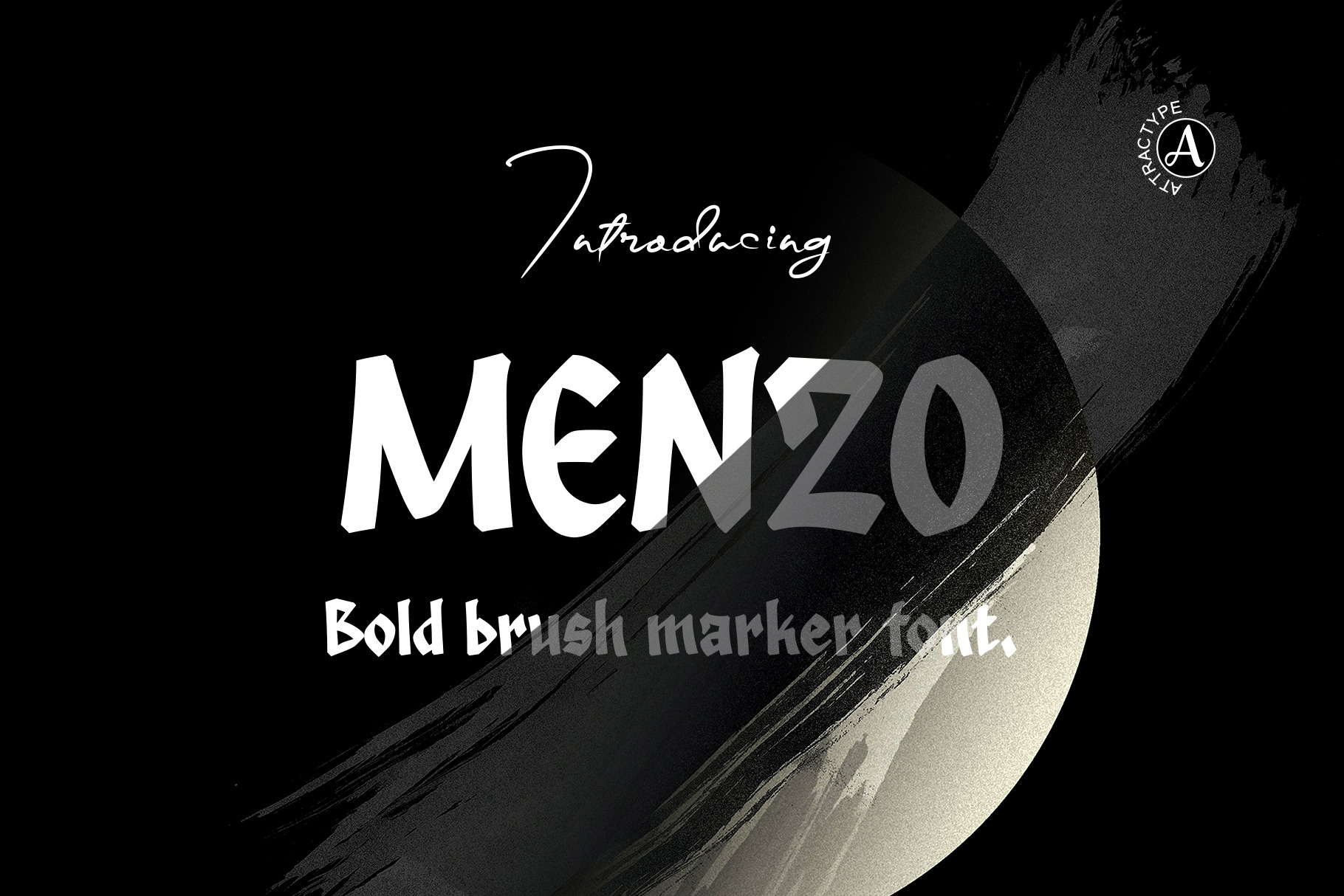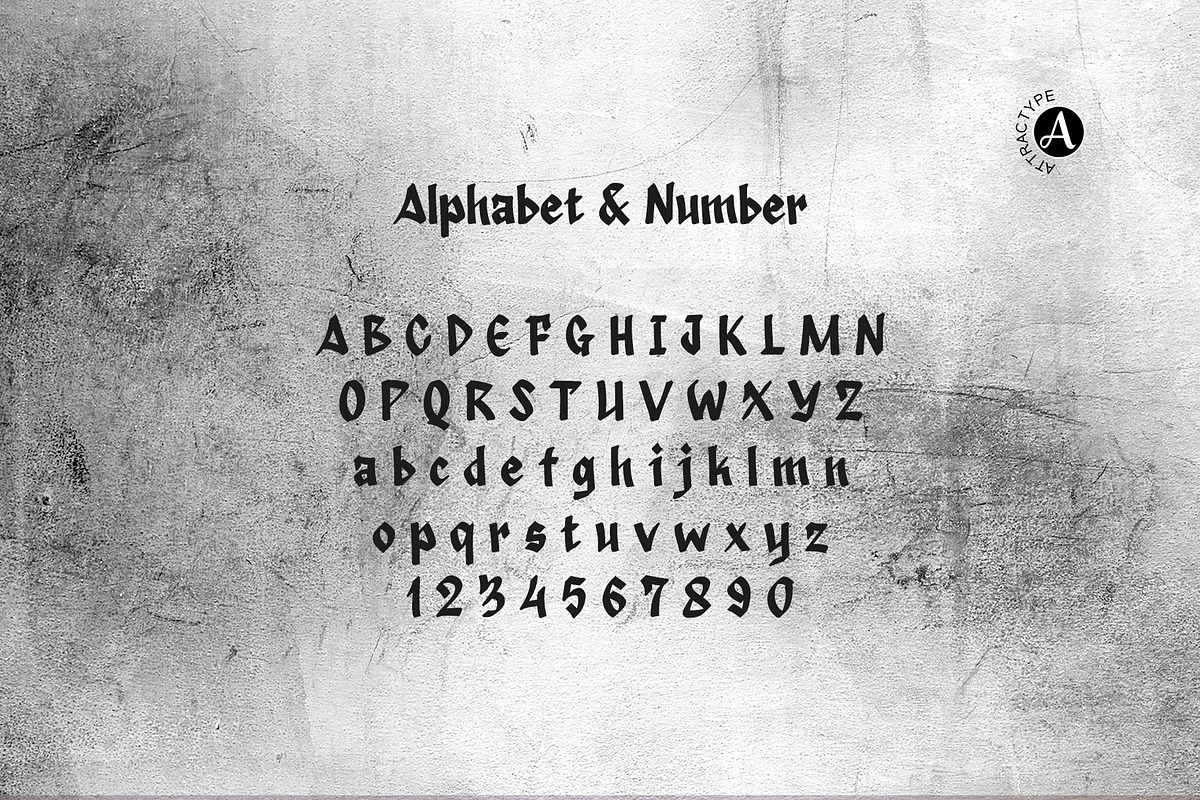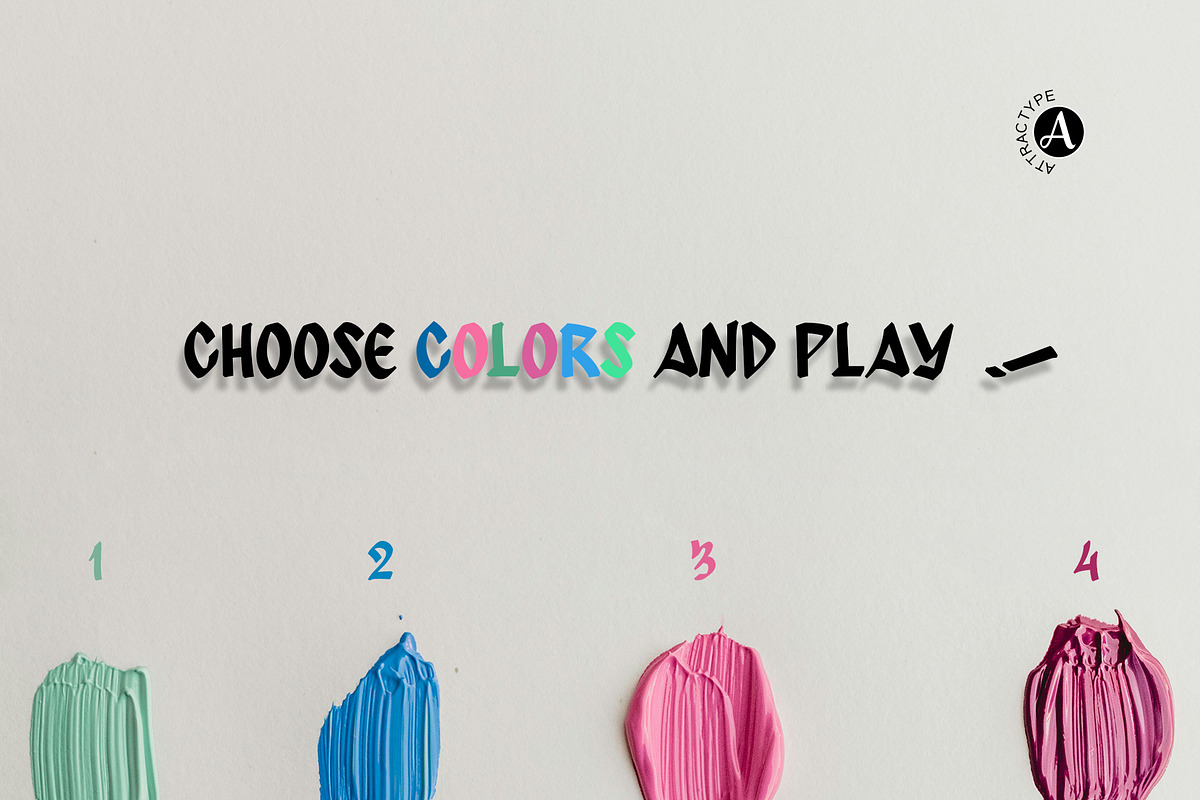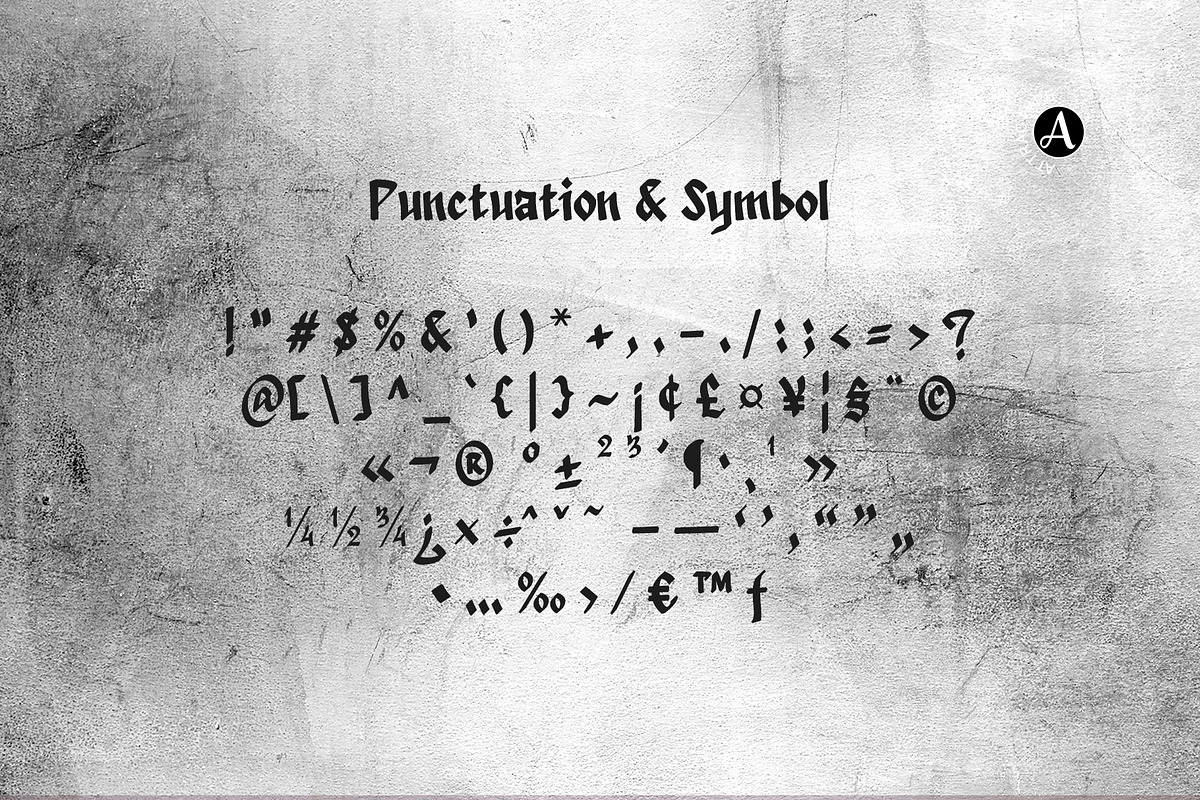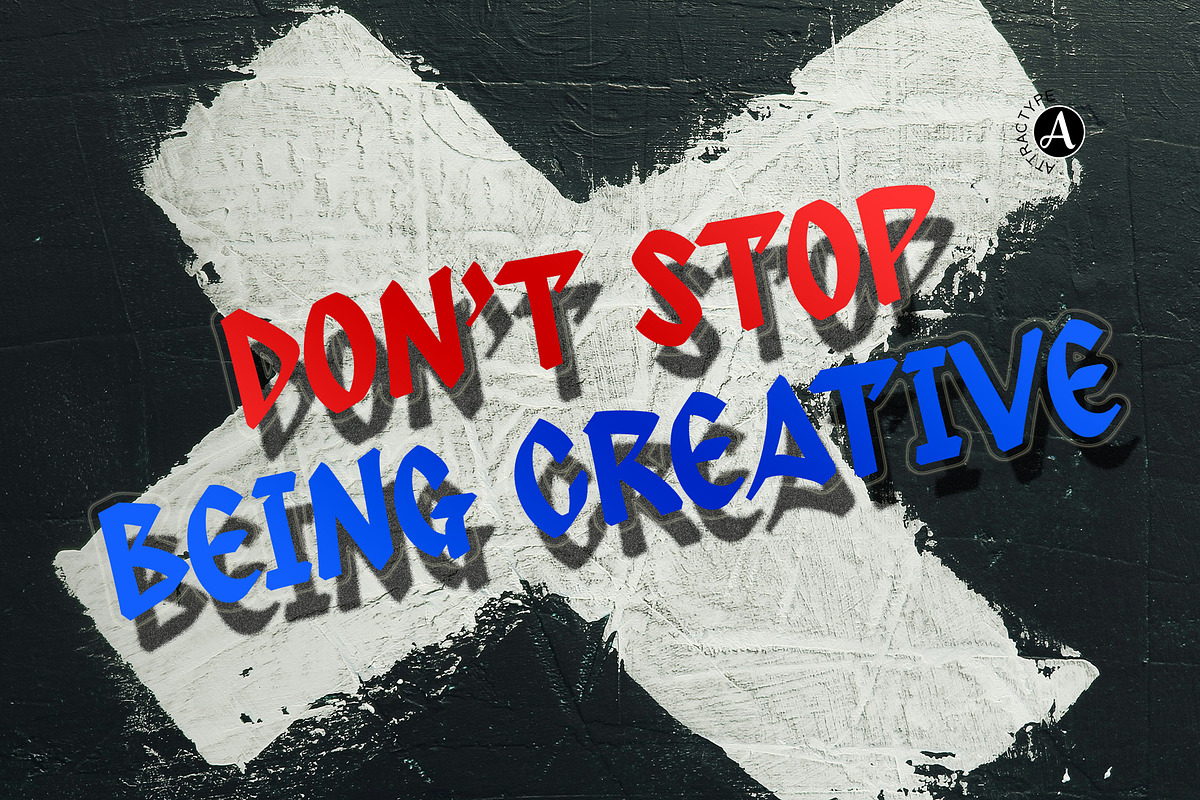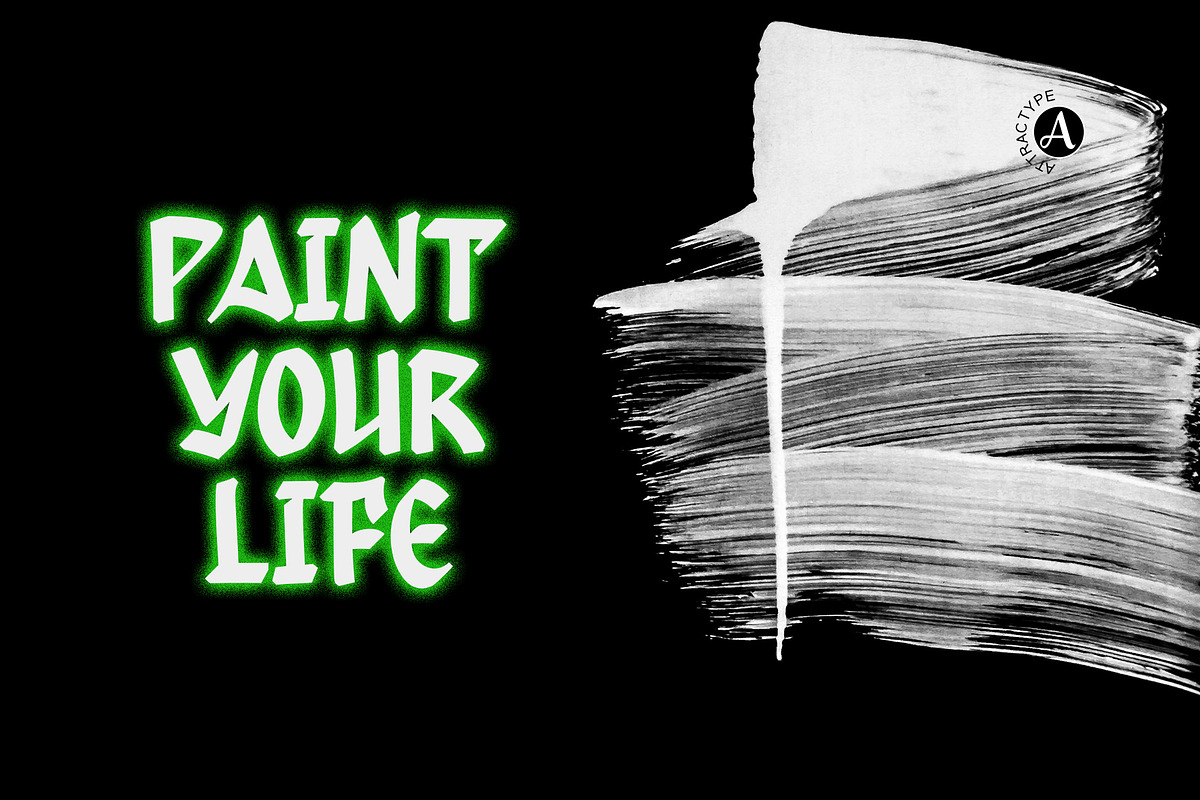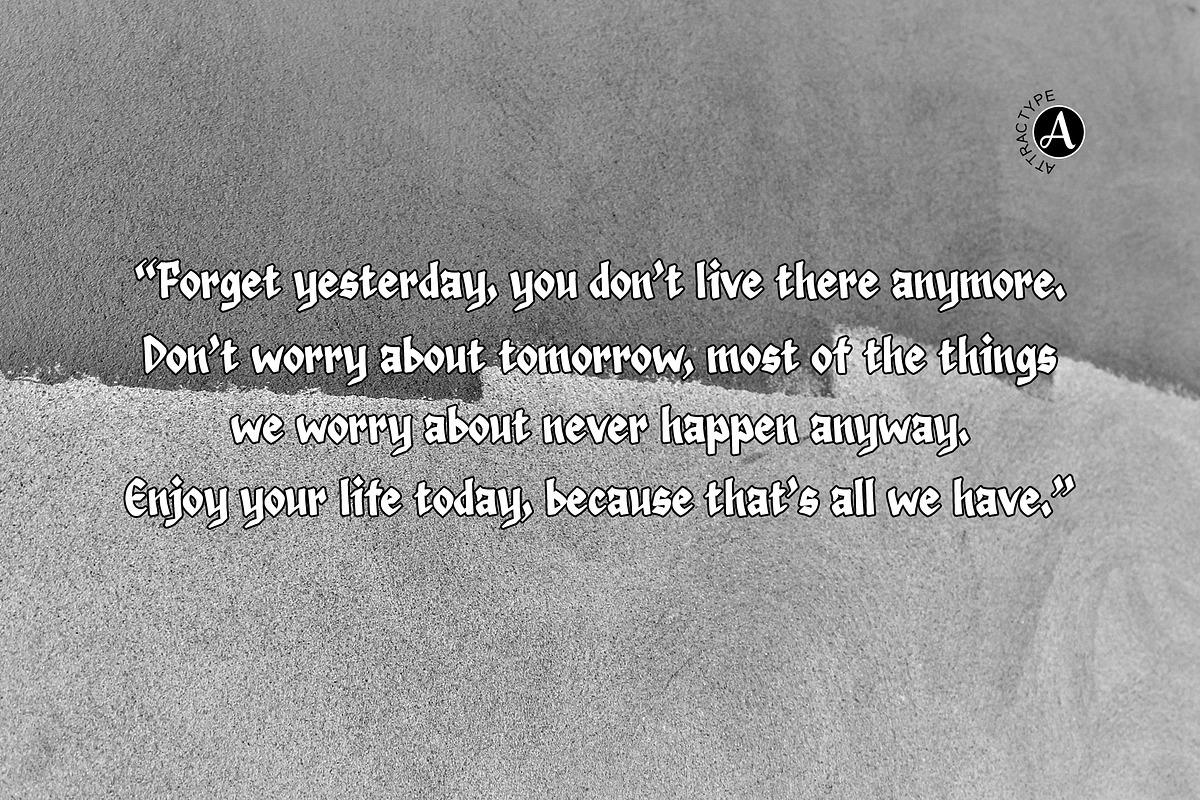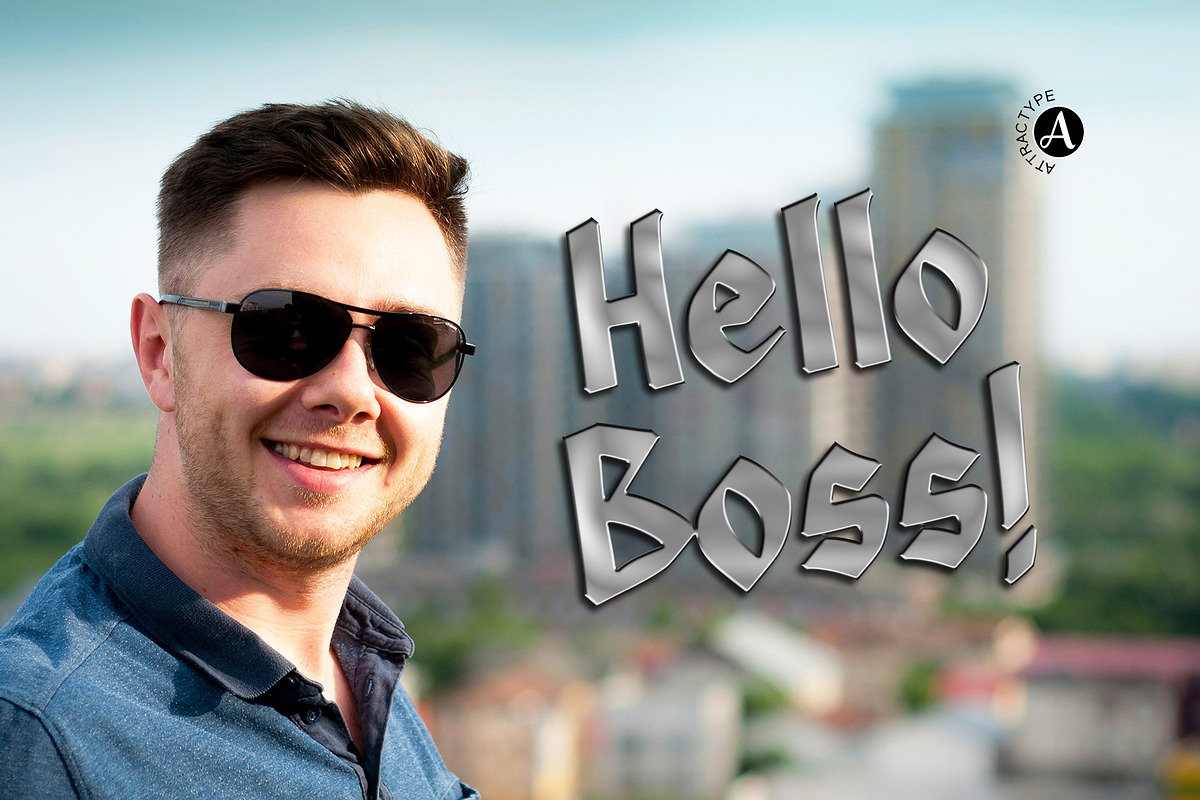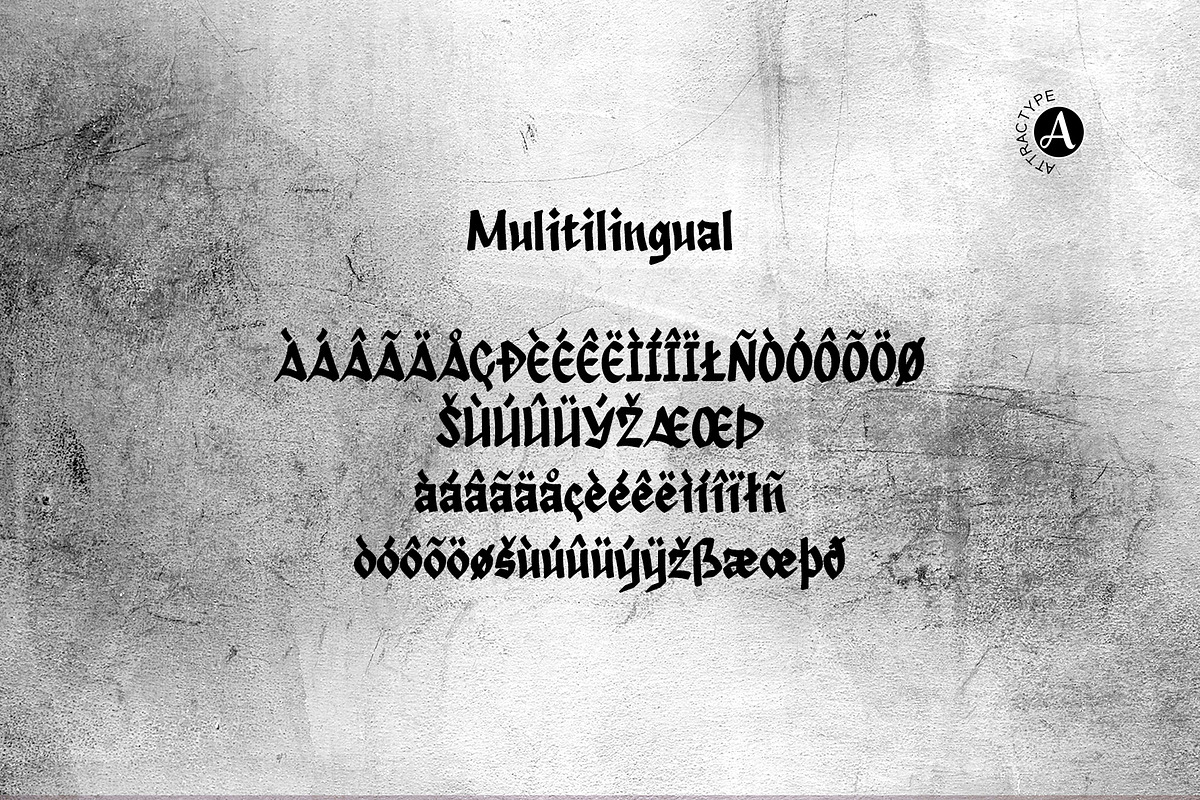
Menzo - Bold brush marker font
Menzo is a bold brush marker font. Created with a combination of handwriting, this font is perfect for creative design projects that require a handwritten and natural touch.
Its thick shape makes it easy for you to add graphic effects as desired.
This font contains all uppercase and lowercase characters, punctuation, symbols, and multi-language support, ideal for product packaging, logos, posters, banners, handwritten quotes, headers, merchandise, social media and more.